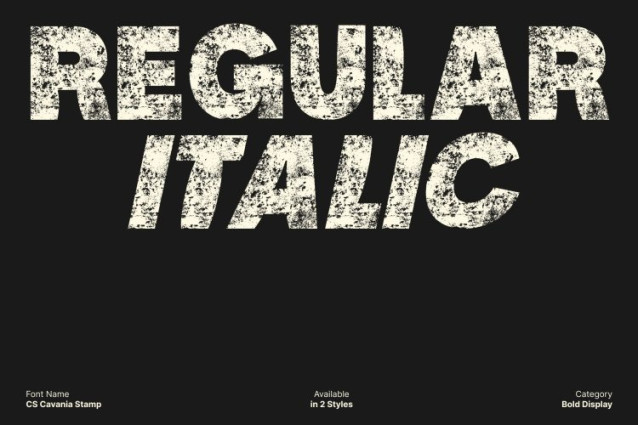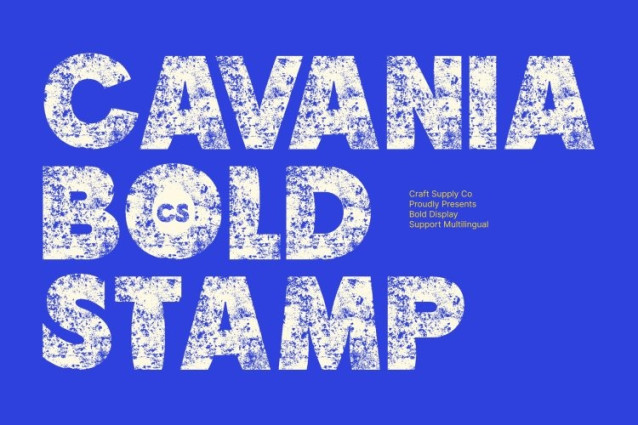
CS Cavania Stamp Font
CS Cavania Stamp Font This is a bold sans serif display font designed to command attention the moment it appears. Its thick strokes and powerful proportions give it a strong, assertive presence that instantly elevates any layout. Perfect for designers who want high visual impact, this font ensures your message stands out clearly and confidently.
Vintage Stamp Texture for an Expressive, Authentic Feel
Adding depth and personality, features a vintage-inspired stamp texture that gives each character a handcrafted, expressive finish. This textured effect softens the bold forms while adding a raw, tactile quality that brings warmth and authenticity. The result is a font that feels both strong and artistic, combining modern boldness with retro charm.
Perfect for Posters, Headlines, and Strong Branding
Built for display use, excels in projects that demand energy and presence. Its bold weight and textured details make it ideal for posters, impactful headlines, promotional visuals, and distinctive branding concepts. Whether you’re crafting a bold campaign, a standout logo, or creative marketing materials, this font helps your message hit with style and confidence.
Energetic, Expressive, and Ready for Creative Projects
This font brings an expressive edge to any design, making it a great fit for creative industries, events, merchandise, and visually bold concepts. Its combination of heavy sans serif shapes and stamped texture offers a lively, vintage-infused personality that captures attention.